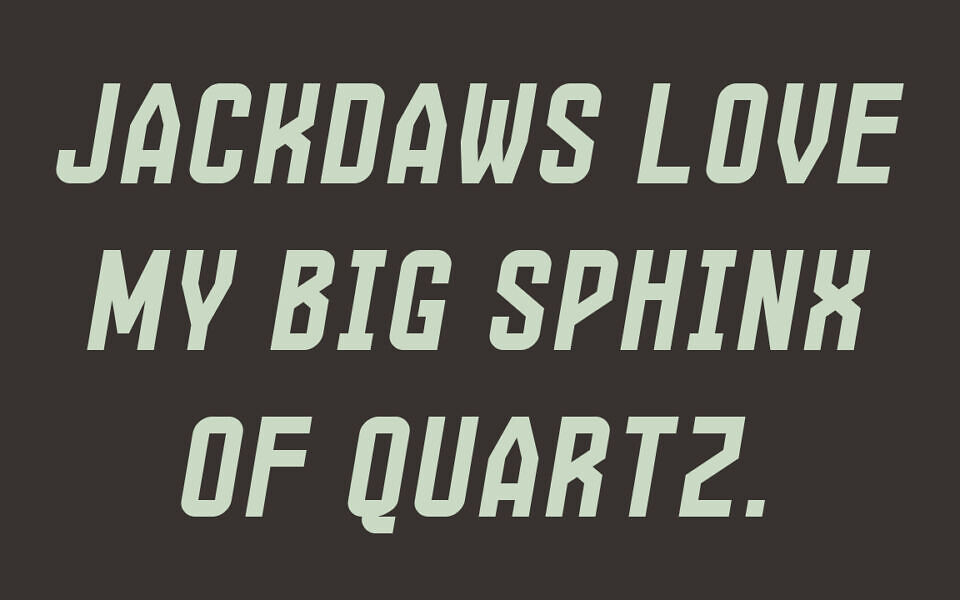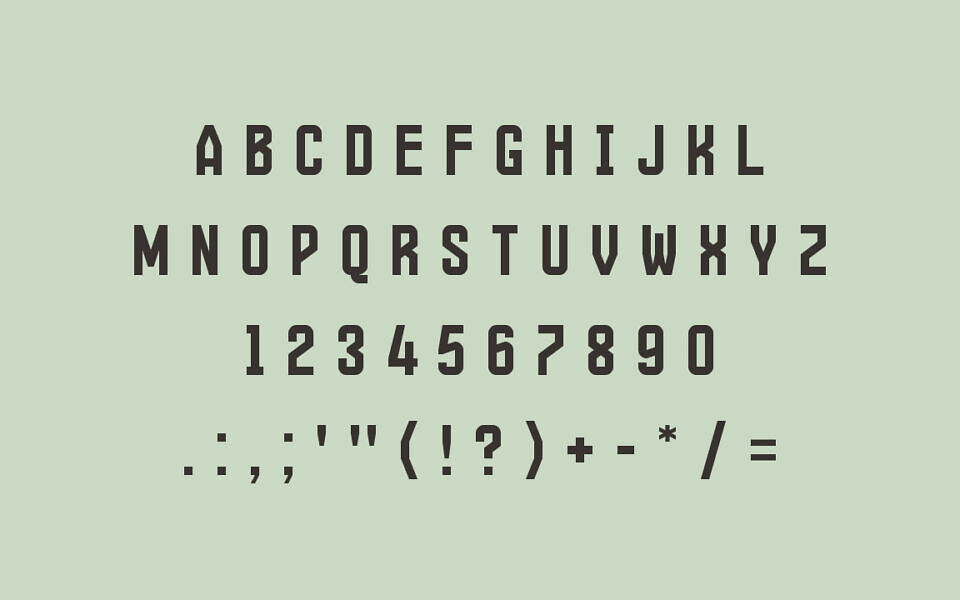
Martius, crafted by GGBot, is a condensed geometric display font with a striking industrial vibe. Its sharp angles, clean lines, and tight letterforms exude boldness and efficiency, perfect for modern, high-impact designs. This versatile typeface shines in branding, posters, signage, and editorial layouts, offering a sleek, mechanical aesthetic.
Ideal for futuristic packaging or industrial graphics, Martius makes a powerful visual statement, blending structure with adaptability to elevate any project. Available for free, it’s a must-have for designers seeking a distinctive, contemporary edge.